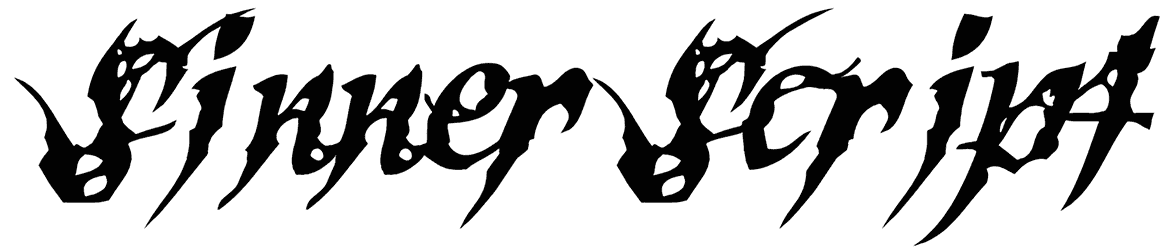
Sinner Script Font
Reveal your viewers a sinister face with Sinner Script. You will be surprised how this mysterious font can be harmonized with many designs, even with no numeric and punctuation mark support. Take this advice and test Sinner Script in your spooky flyers, demonic theme invitations, games, or many more, and make them out of this world.